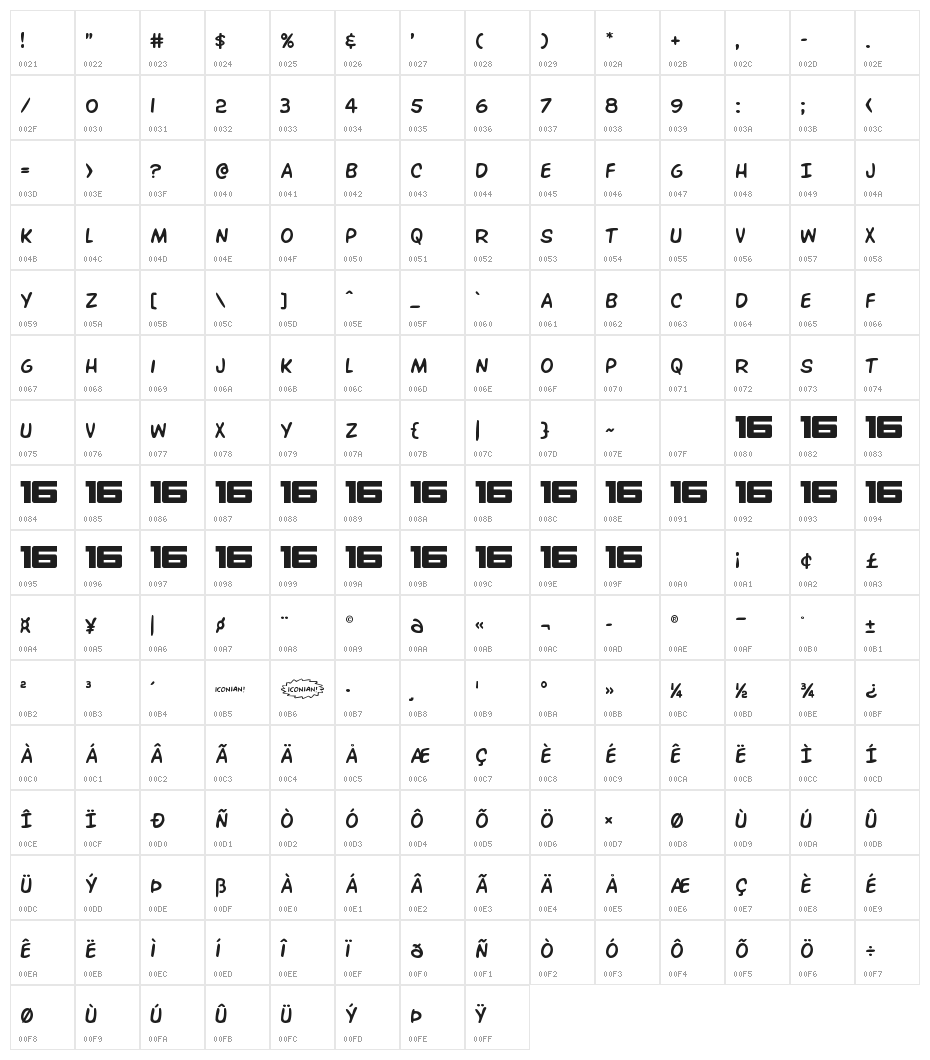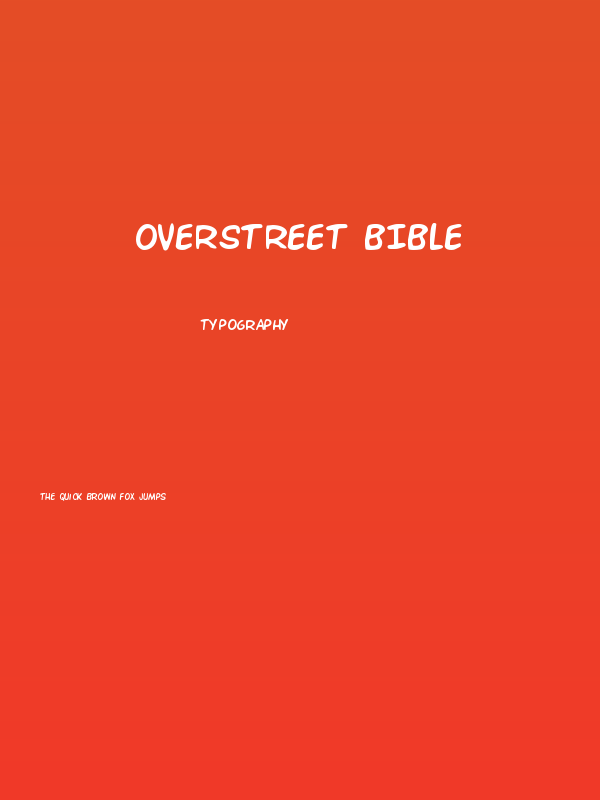
Overstreet Bible Font
Overstreet Bible Description
This playful and bold font features rounded edges and a handwritten style, giving it a casual and friendly appearance. The characters are slightly slanted, adding a dynamic and informal touch. The uppercase and lowercase letters maintain a consistent style, with a uniform stroke width that enhances readability. The numbers and special characters are designed to match the overall aesthetic, ensuring a cohesive look across all text elements. This font is ideal for projects that require a personal, approachable feel, such as children's books, greeting cards, or informal branding.
| Use Case | Headlines, Logos, Informal text |
| Proposed Projects | Children's books, greeting cards, informal branding, playful posters. |